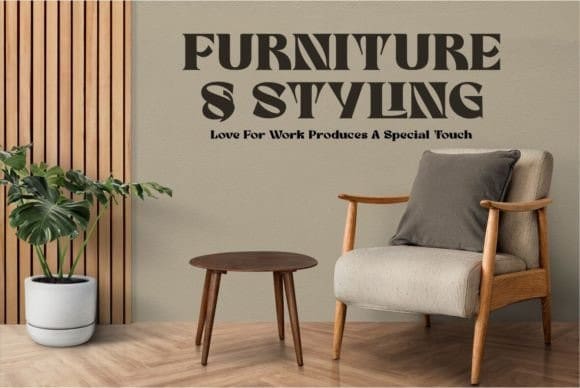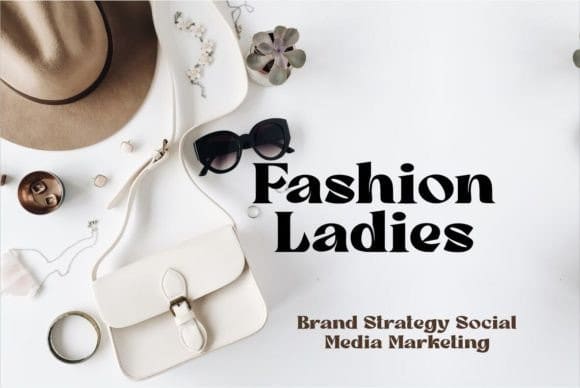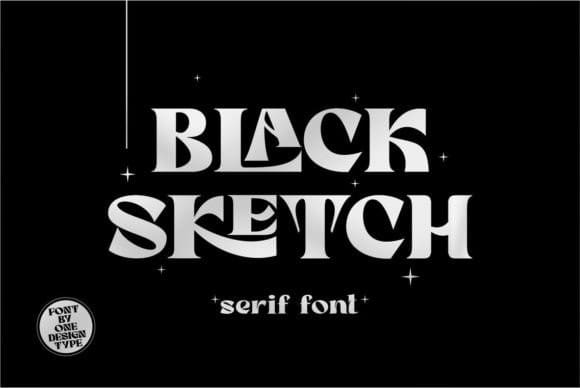
Black Sketch Font
Black Sketch Font is another retro serif font inspired by classic bold typefaces, it comes with alternatives and ligatures making this font more stylish with a retro style. This font is suitable for headings, logotypes, posters, and much more.
This font is perfect for branding, logos, social media, prints, stickers, shirts, svg files and more!
There are many fun alternative styles available to use with this font. These letters are embedded into the font file and easily accessible in programs such as Photoshop and Illustrator.